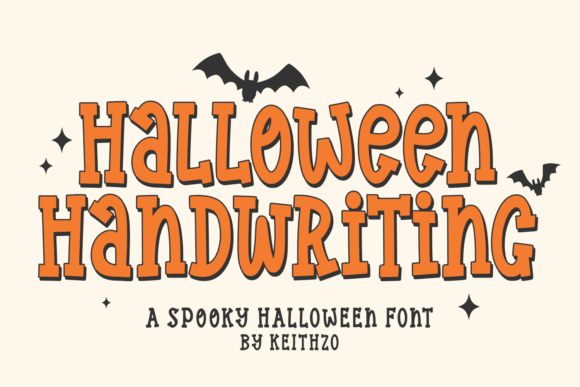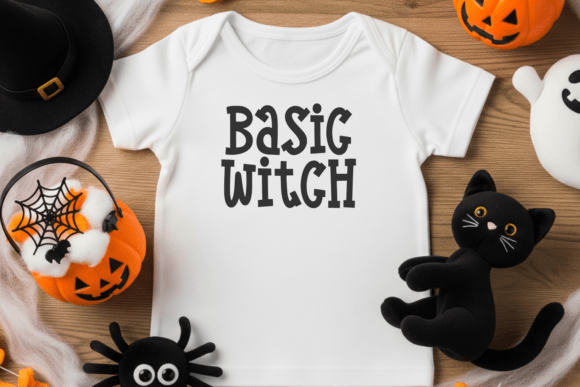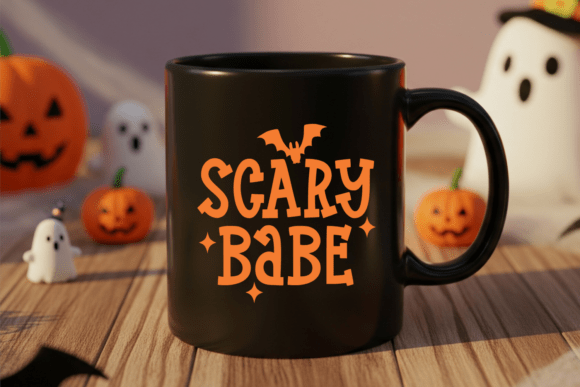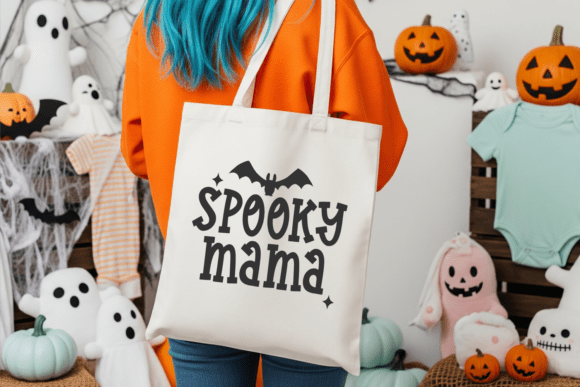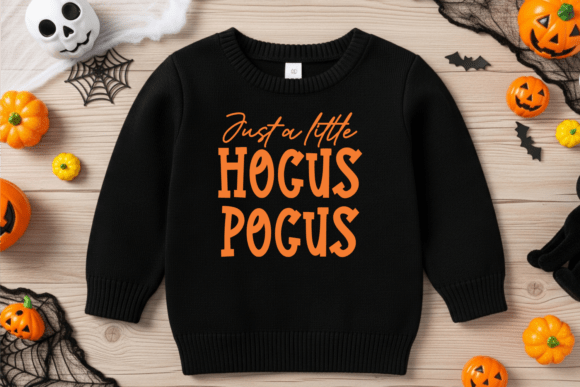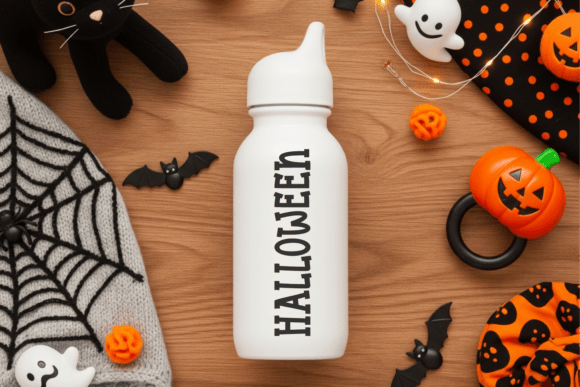
Spooky Season Just Got a Whole Lot More Creative
You know that moment when the sun sets on a crisp autumn evening, and the moon casts an eerie glow over the trees? It’s the perfect time to let your creativity run wild, and what better way to capture the essence of the spooky season than with the perfect font?
Enter the Halloween Handwriting Font, a unique display serif that’s sure to add a touch of macabre magic to your designs. Whether you’re working on a personal project or a commercial one, this font is the perfect addition to your toolkit. With its ghoulish aesthetic, it’s an ideal choice for everything from t-shirts and mugs to posters and crafts. And for designers, it’s a valuable tool to add a little extra oomph to their work, making it stand out from the crowd.
Halloween Handwriting Font Key Features
- Font Style: A spooky, handwritten font with a Halloween theme, perfect for adding a touch of eeriness to your designs.
- Unique Characteristics: Features irregular letterforms, uneven spacing, and subtle texture, giving it a unique, handwritten feel.
Halloween Handwriting Font Review
Overall, I’m quite impressed with the Halloween Handwriting Font. It’s a unique and creative way to add some spooky flair to your designs. ✨ Here are some things that I think work well:
- Playful and whimsical feel: The font perfectly captures the playful spirit of Halloween.
- Highly legible: Despite its handwritten appearance, the font is surprisingly easy to read.
- May not be suitable for formal or professional designs: The font’s playful feel may not be suitable for more formal or professional projects.
- ⚠️ May be too ornate for some designs: The font’s elaborate design may overpower some designs or make them look cluttered.
Overall, I think the Halloween Handwriting Font is a great addition to any designer’s toolkit. With its playful feel and high level of customization, it’s perfect for designs that need a little extra flair. Just be mindful of its limitations and use it judiciously to get the best results.
The Halloween Handwriting Font is perfect for adding a spooky touch to your designs, such as:
- Halloween invitations and party decorations
- Spooky quotes and sayings
- Creepy title and headings
- Haunted house and monster designs
Remember to experiment with different font sizes, colors, and combinations to get the most out of this unique font.
Alternatives to Halloween Handwriting Font for Designers
Great Vibes is a beautiful, handwritten font that’s perfect for creating a whimsical and carefree atmosphere. It’s ideal for use in posters, flyers, and social media graphics. Great Vibes is similar to Halloween Handwriting Font in its flowing, cursive style, but it has a more relaxed and casual feel.
Pacifico is a elegant, handwritten font that’s great for creating a sophisticated and luxurious atmosphere. It’s perfect for use in wedding invitations, luxury branding, and high-end marketing materials. Pacifico is similar to Halloween Handwriting Font in its flowing, cursive style, but it has a more refined and polished feel.
Dancing Script is a lively, handwritten font that’s perfect for creating a fun and energetic atmosphere. It’s ideal for use in party invitations, event branding, and social media graphics. Dancing Script is similar to Halloween Handwriting Font in its playful and whimsical style, but it has a more dynamic and expressive feel.